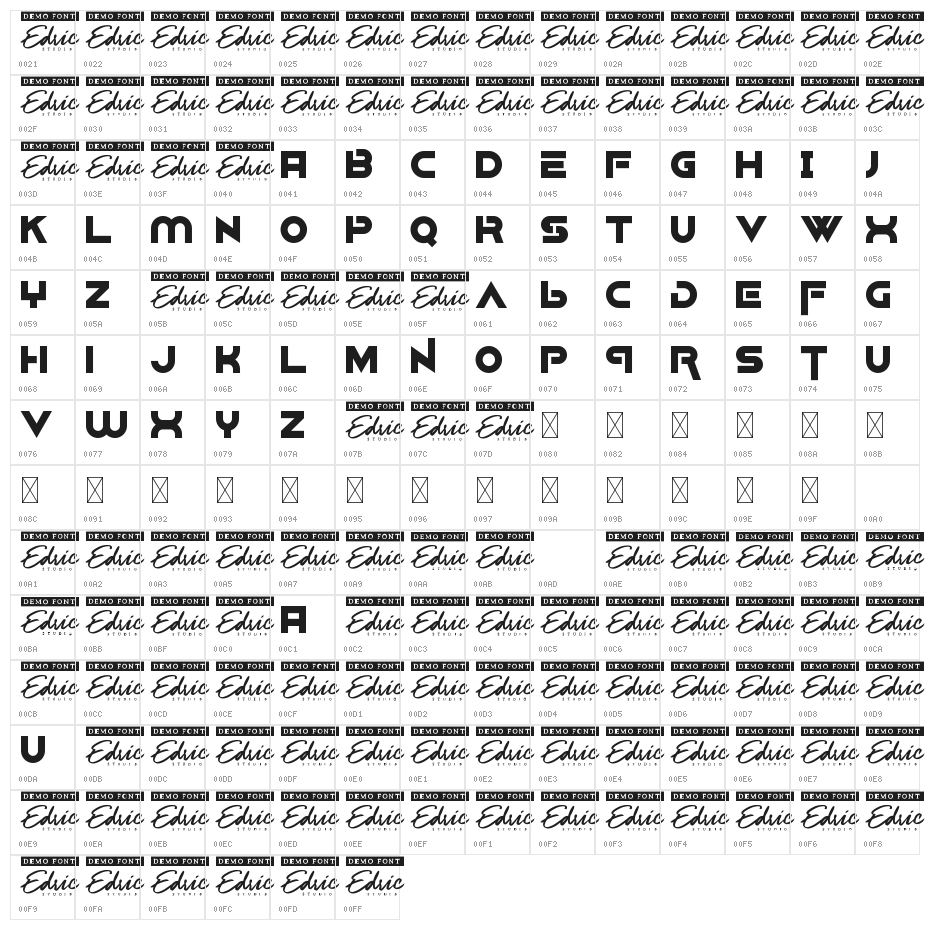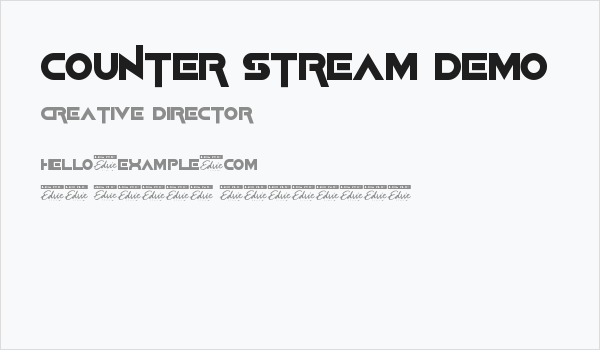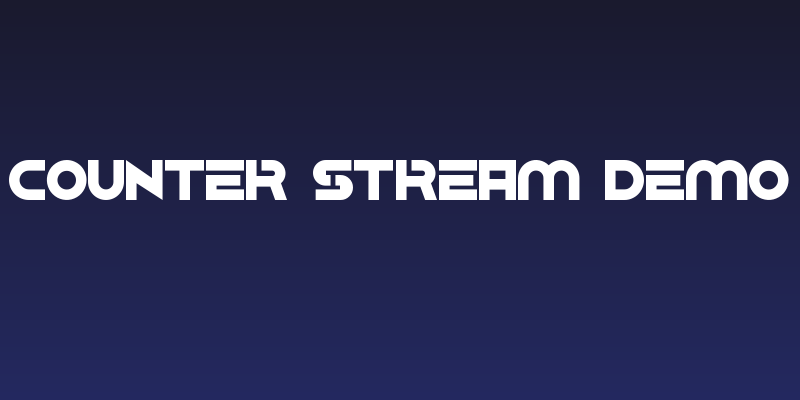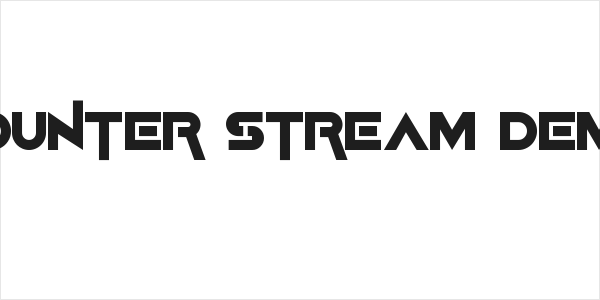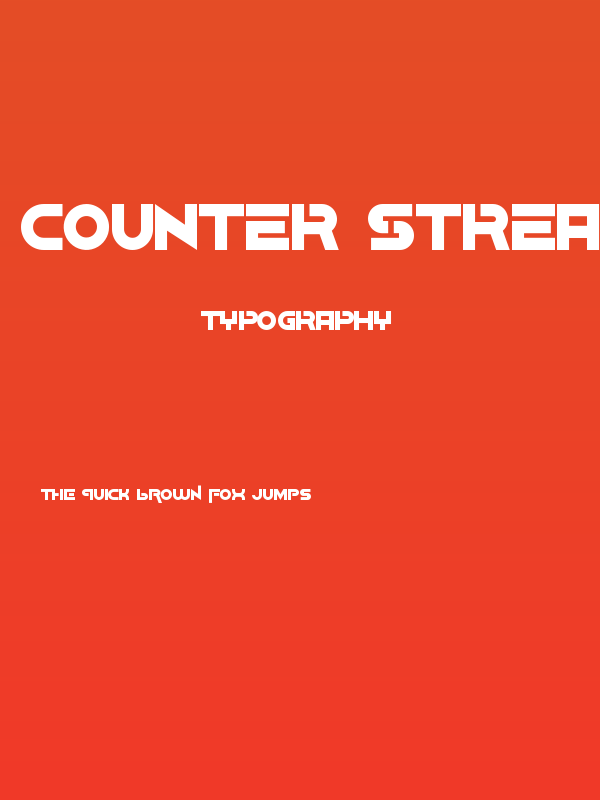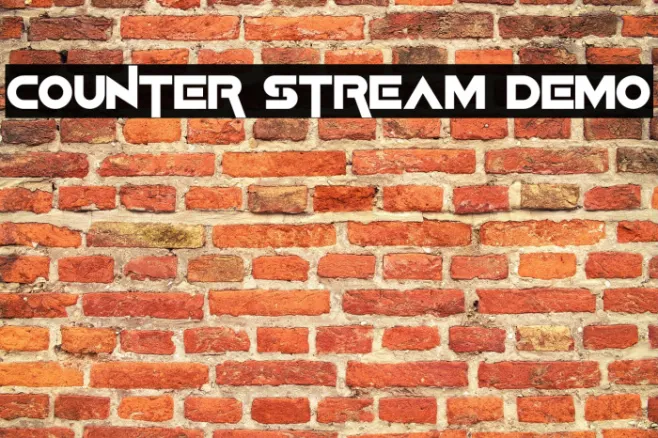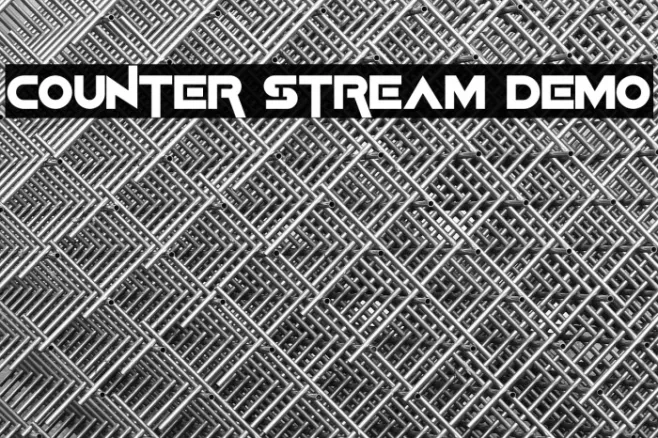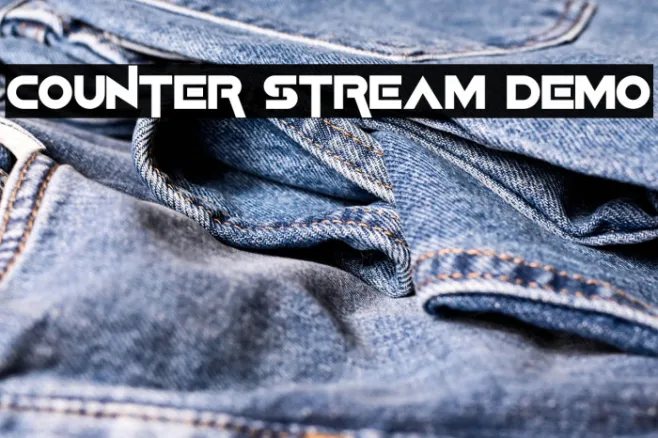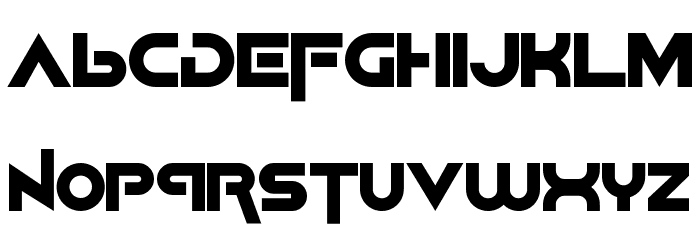
Counter Stream Demo Font
Counter Stream Demo Description
This font features a bold, geometric style with a futuristic and modern aesthetic. The characters are constructed with sharp angles and clean lines, creating a sense of precision and strength. The uppercase letters are particularly striking, with unique cutouts and shapes that give the font a distinctive look. The lowercase letters maintain the same geometric style, providing consistency throughout the typeface. This font is ideal for projects that require a bold and impactful visual presence, such as branding, headlines, and posters. Its strong and confident appearance makes it suitable for conveying messages with authority and style.
| Proposed Projects | Ideal for branding, headlines, posters, and any project requiring a bold visual impact. |